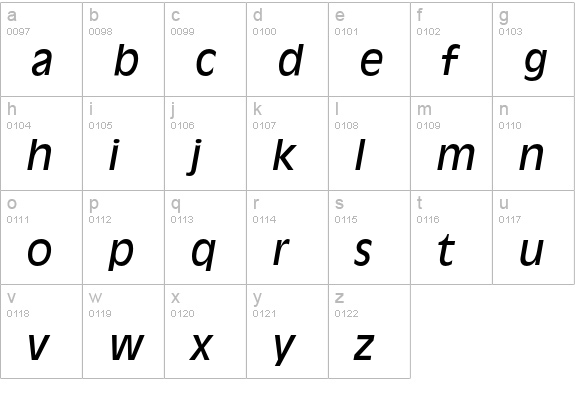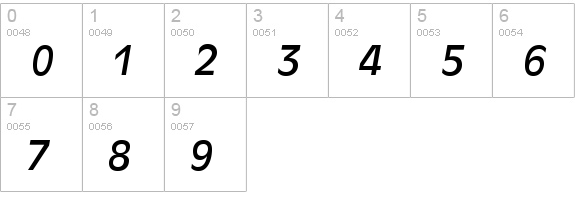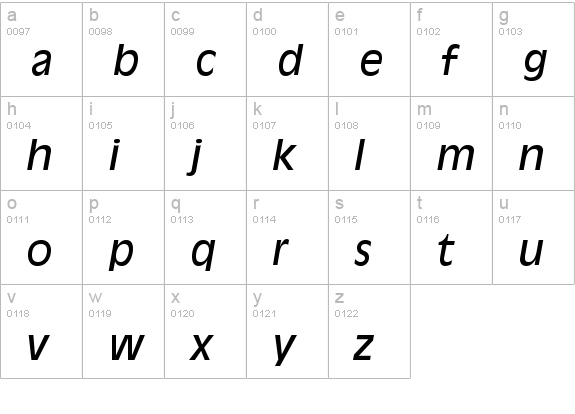
12 Antique Olive** Italic 13008 Font Details
12 Antique Olive** Italic 13008 is a distinctive, italic variant in the 12 typeface family \xE2\x80\x94 well suited to design and typography projects.
Antique Olive Italic 13008 is a classic and elegant typeface that exudes sophistication and charm. With its graceful curves and stylish slant, this font is perfect for adding a touch of refinement to any design project. Whether you're creating invitations, posters, or branding materials, Antique Olive Italic 13008 is sure to make a lasting impression. The best part? This exquisite font is available for free download at FontsMarket.com. So go ahead and elevate your designs with the timeless beauty of Antique Olive Italic 13008.